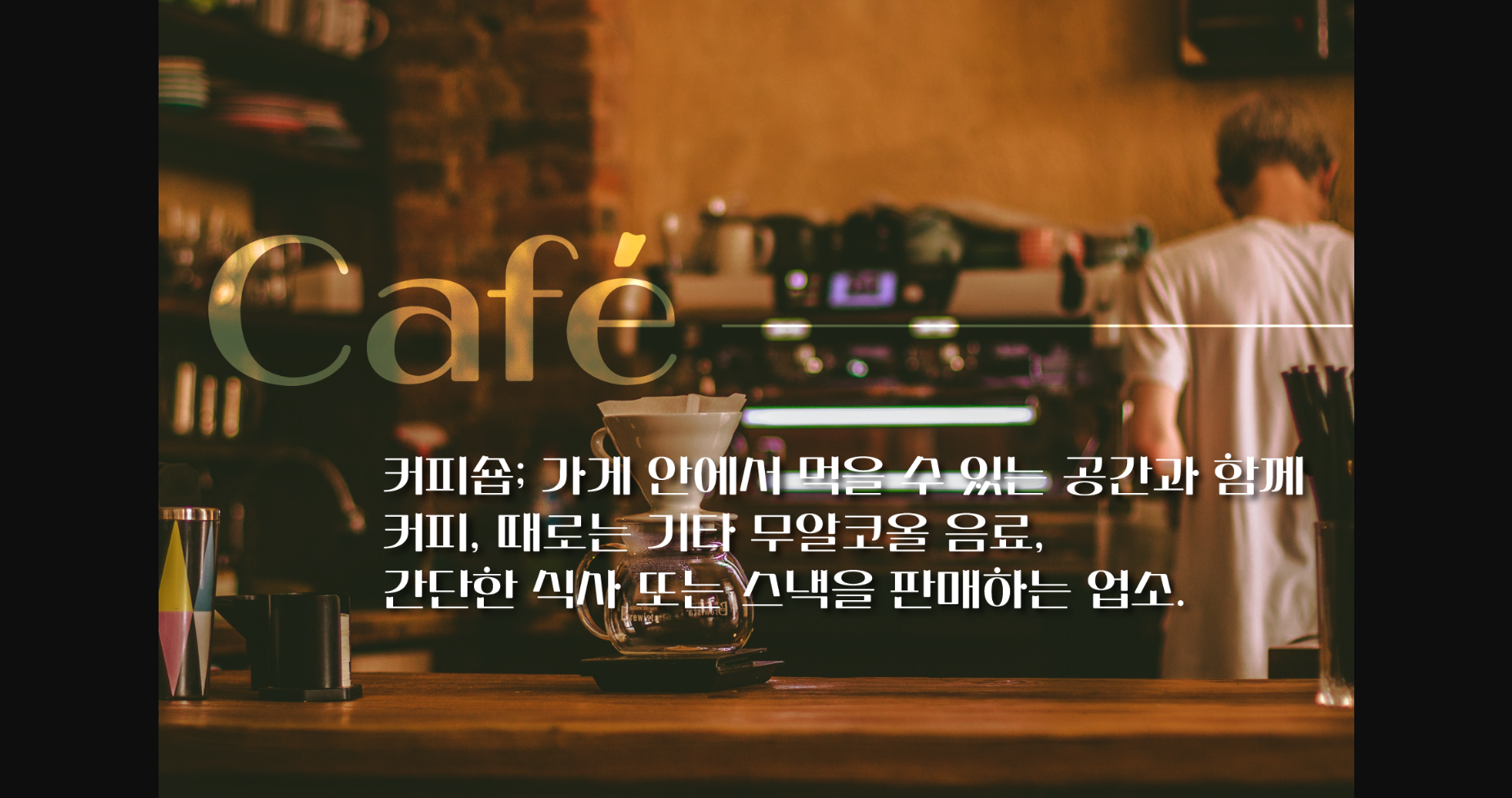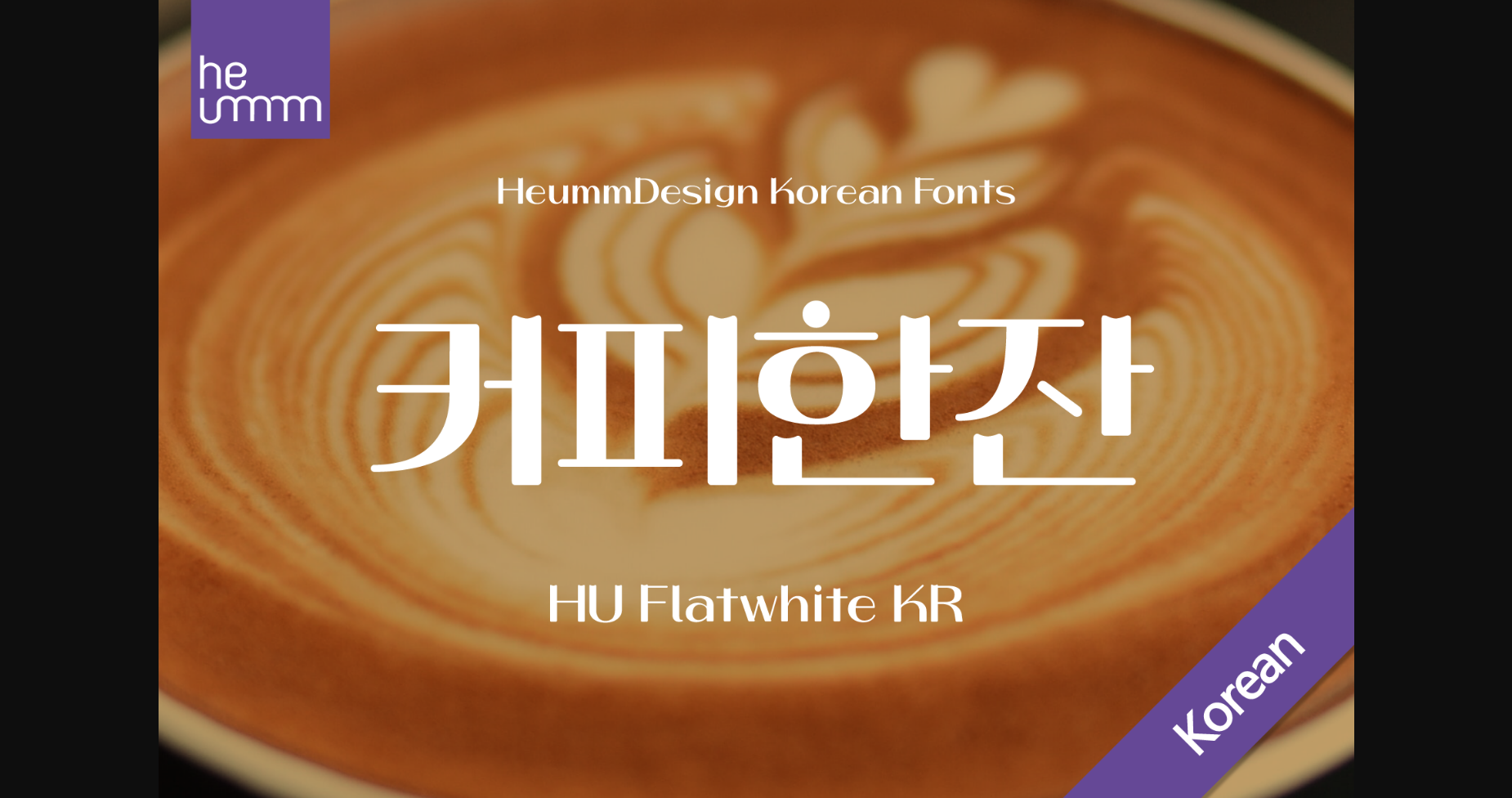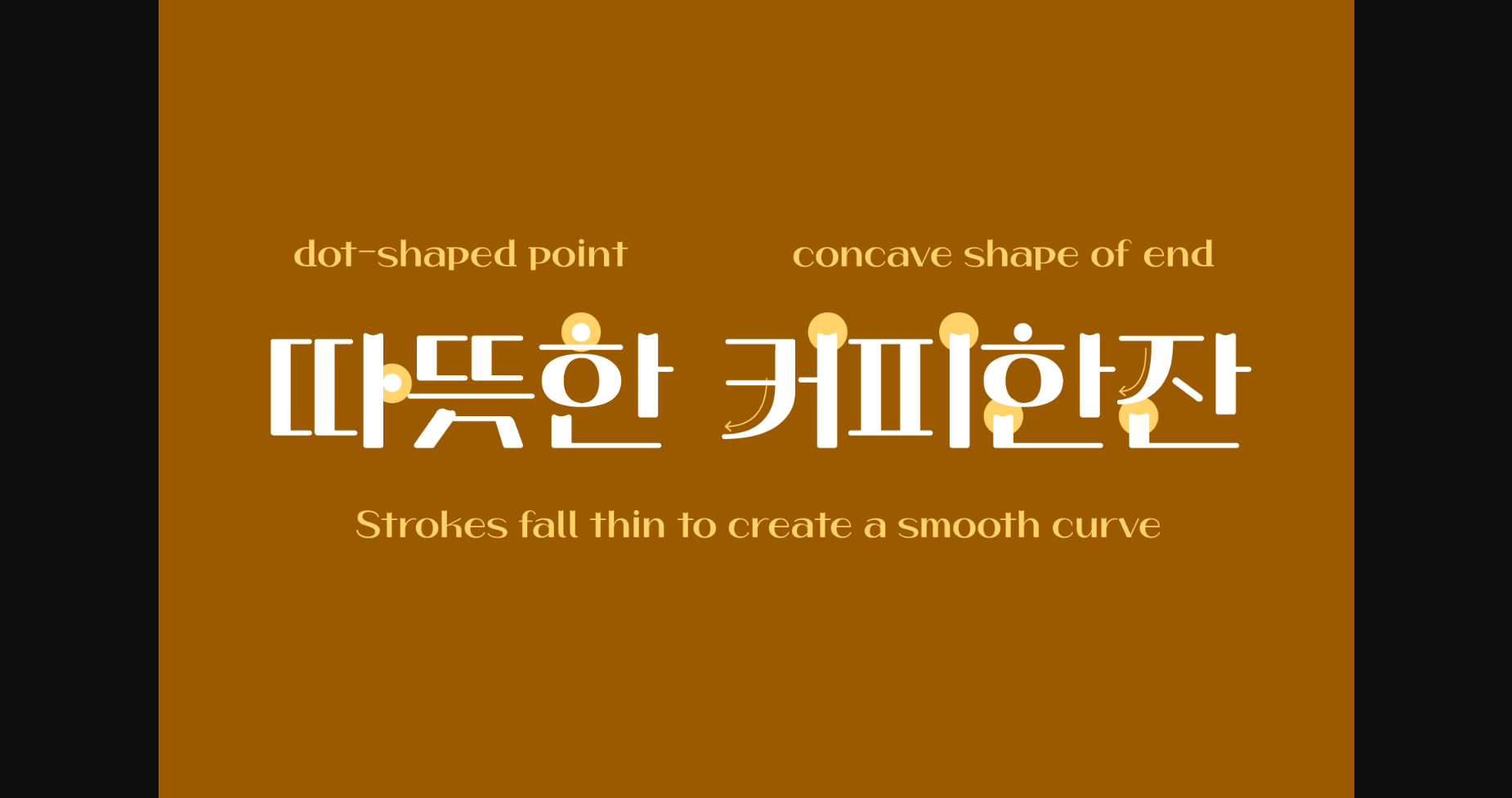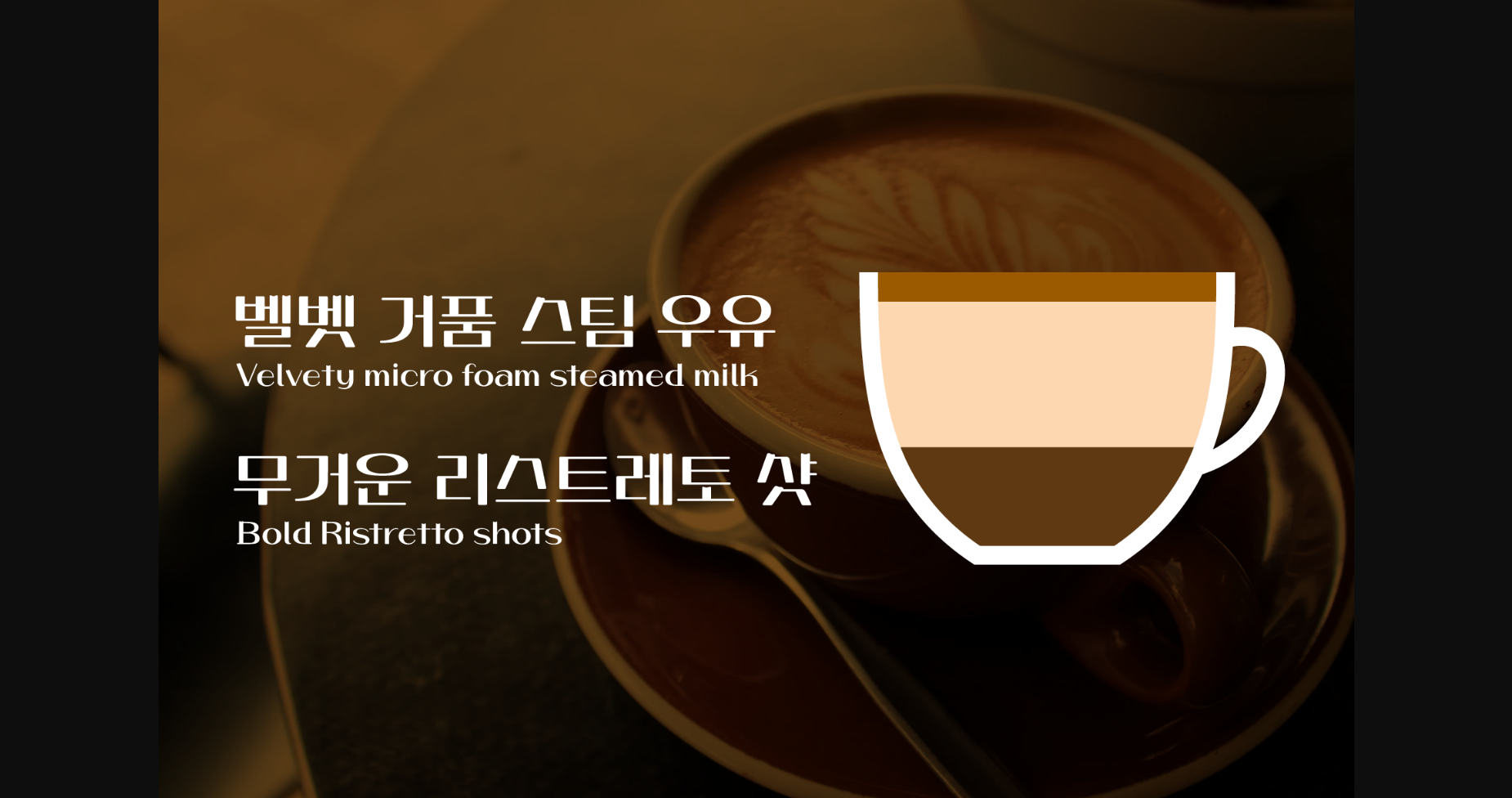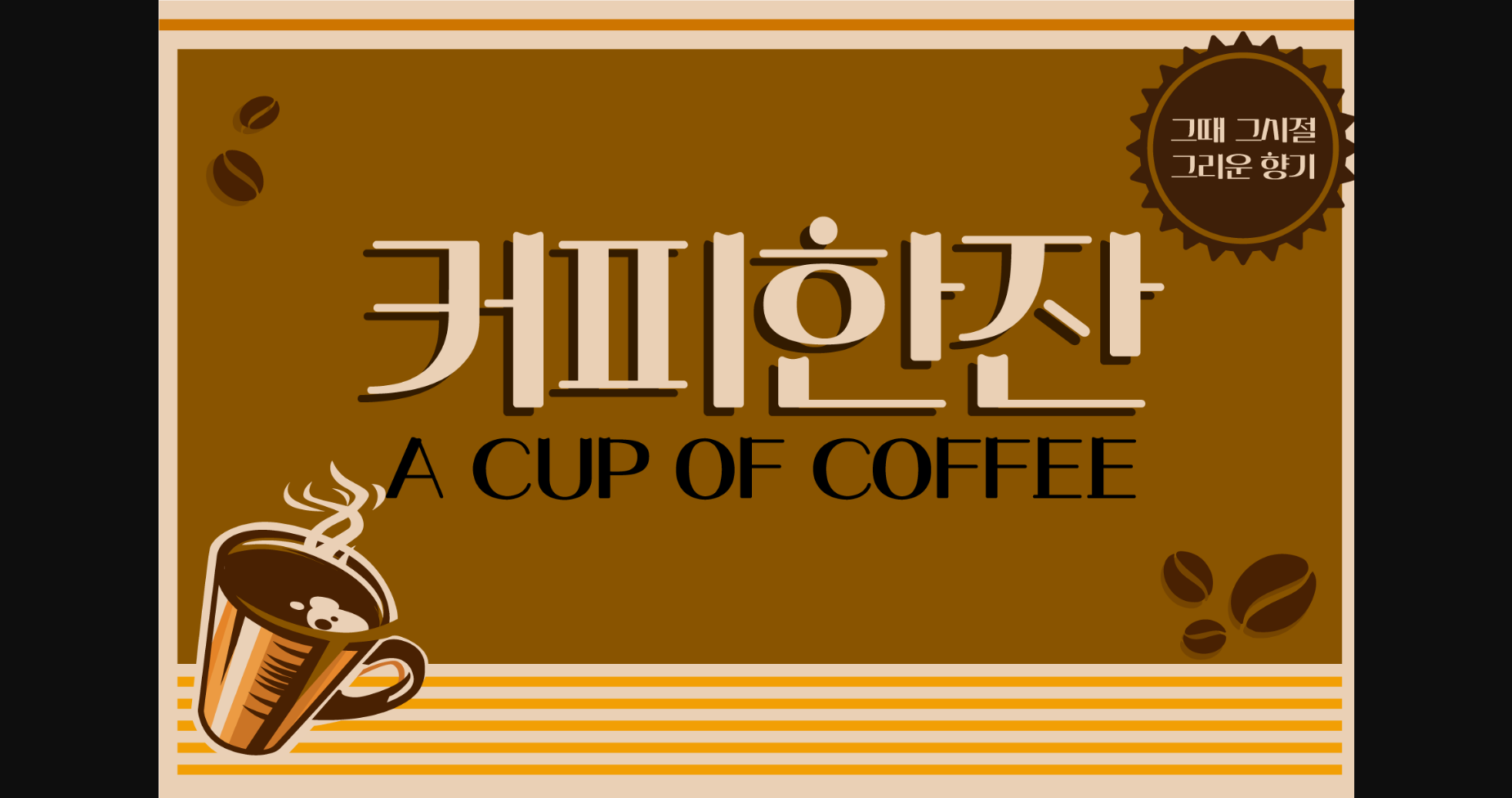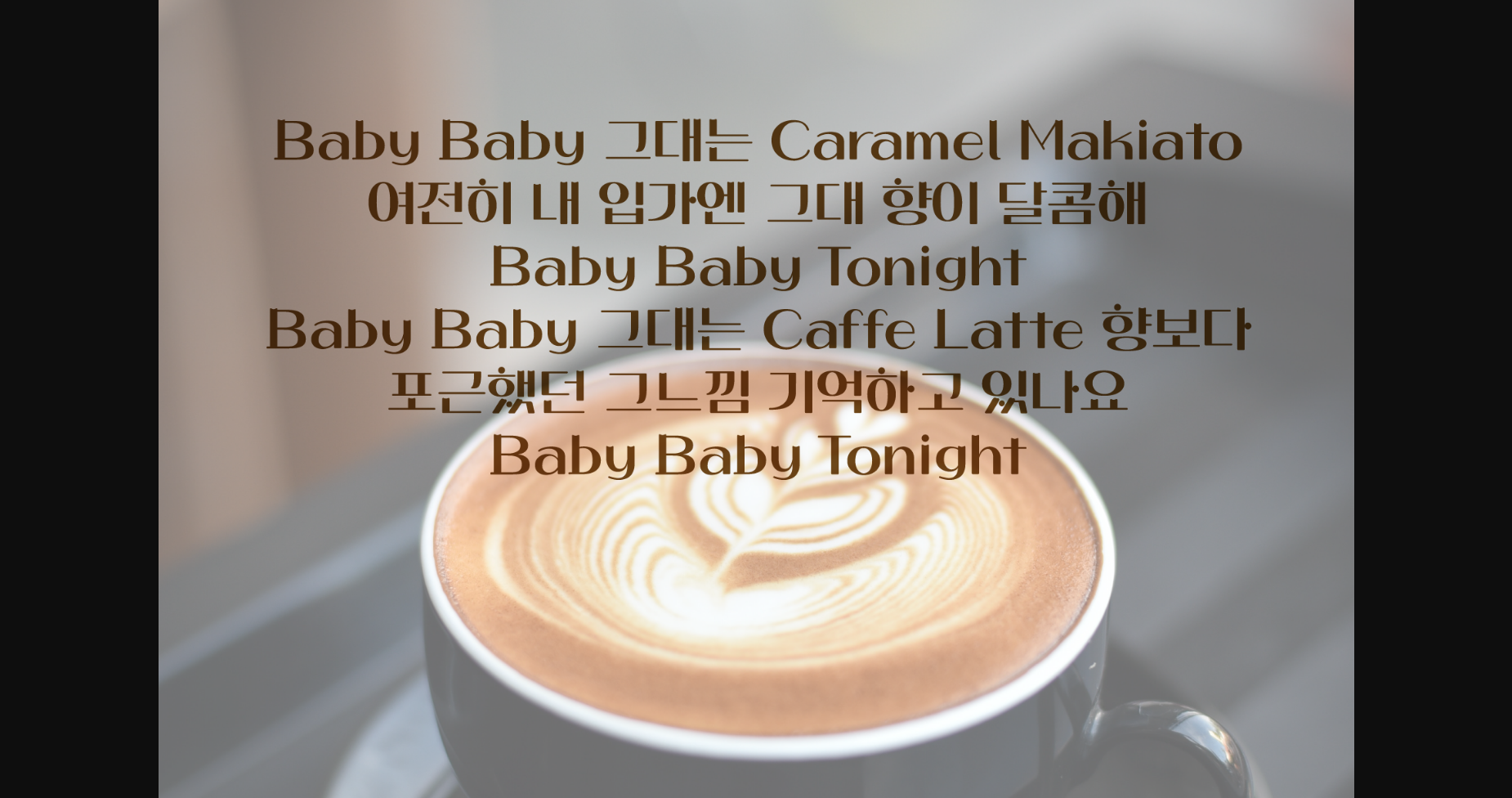
Flatwhite Kr Font
About Flatwhite Kr Font
This is a headline typeface for titles with a retro sensibility. The concave first projection of the vowel and the dot shape further add to the retro feel.
It is characterized by the dot shape seen in the initial consonants and the thin ending strokes of ‘ㄱ’, ‘ㅅ’, and ‘ㅈ’ to create a flowing curve.
Although it is a full module, the inner space created by the large contrast of strokes gives a cool feeling.